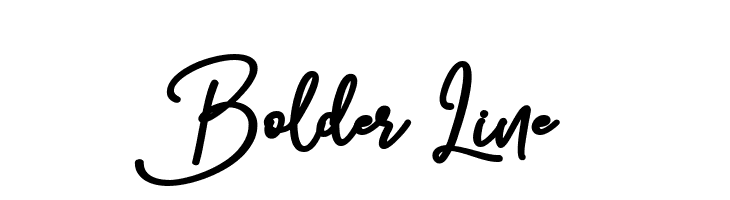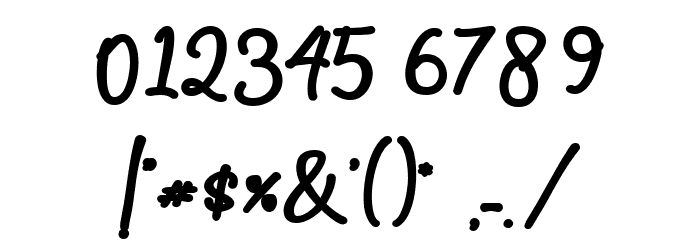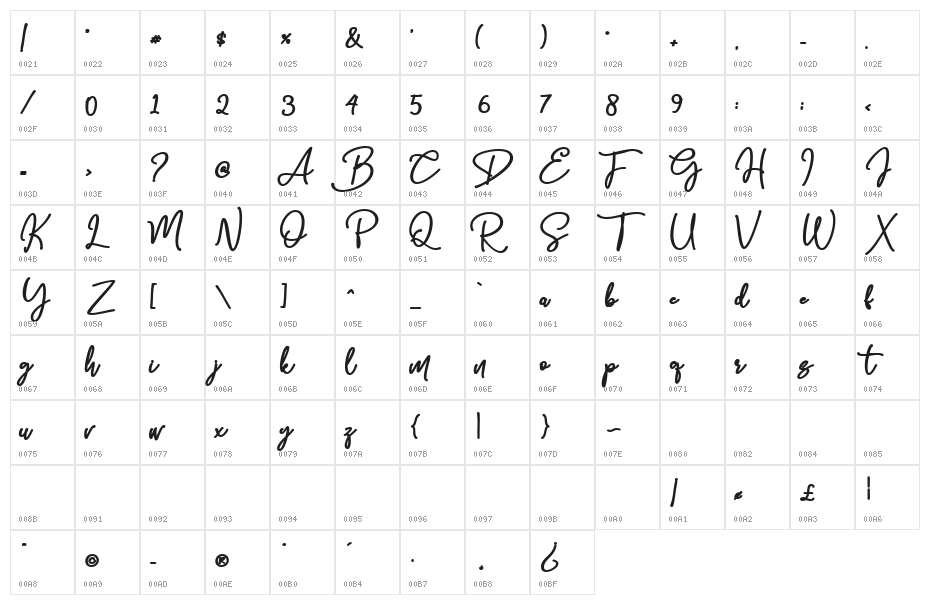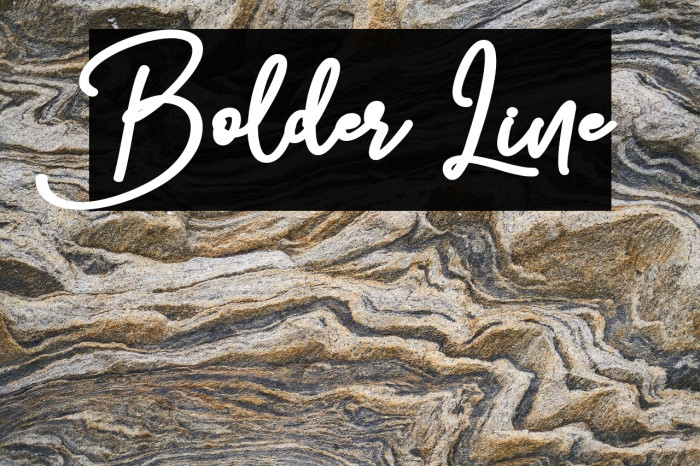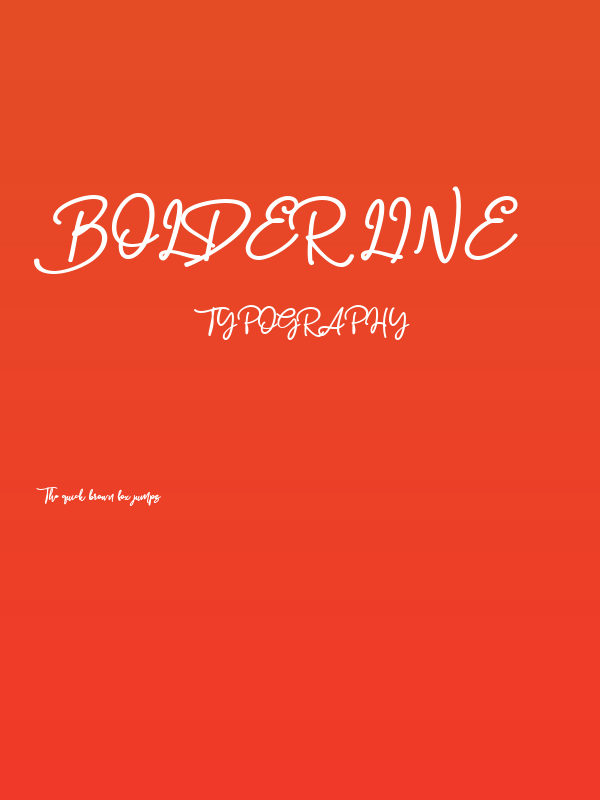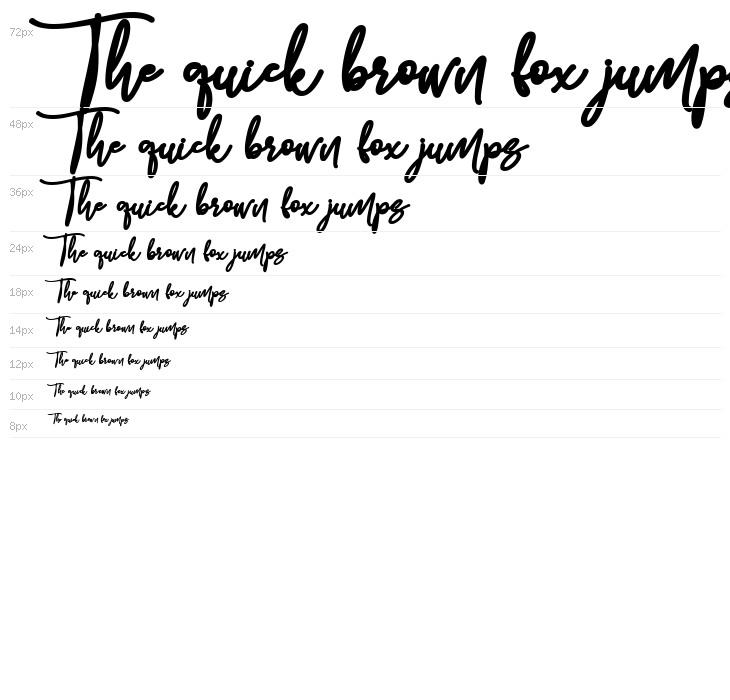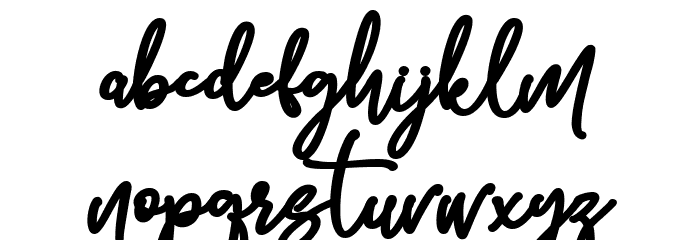
Bolder Line Font
Bolder Line Description
This font features a dynamic and expressive script style, characterized by its fluid, cursive letterforms that convey a sense of elegance and creativity. The uppercase letters are slightly more structured, maintaining a consistent height, while the lowercase letters exhibit a playful and flowing nature. The numbers and special characters are designed to complement the overall script aesthetic, with smooth curves and a harmonious balance. This font's bold strokes and connected letters make it ideal for projects that require a personal and artistic touch.
| Proposed Projects | Ideal for wedding invitations, greeting cards, branding, and artistic projects that require a personal touch. |